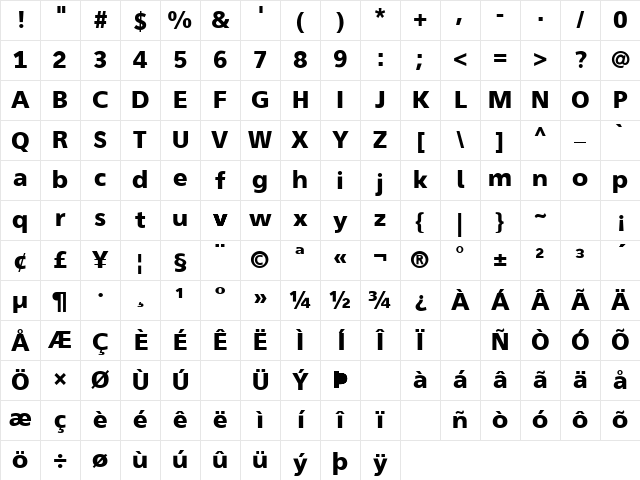
Agan Extra Bold
Style: Extra Bold
Agan Family
Agan Extra Bold
Design Context for Agan
Agan is a composed and adaptable typeface that performs quietly and consistently across a wide range of design contexts. Its bold stroke weight gives it real presence on the page.